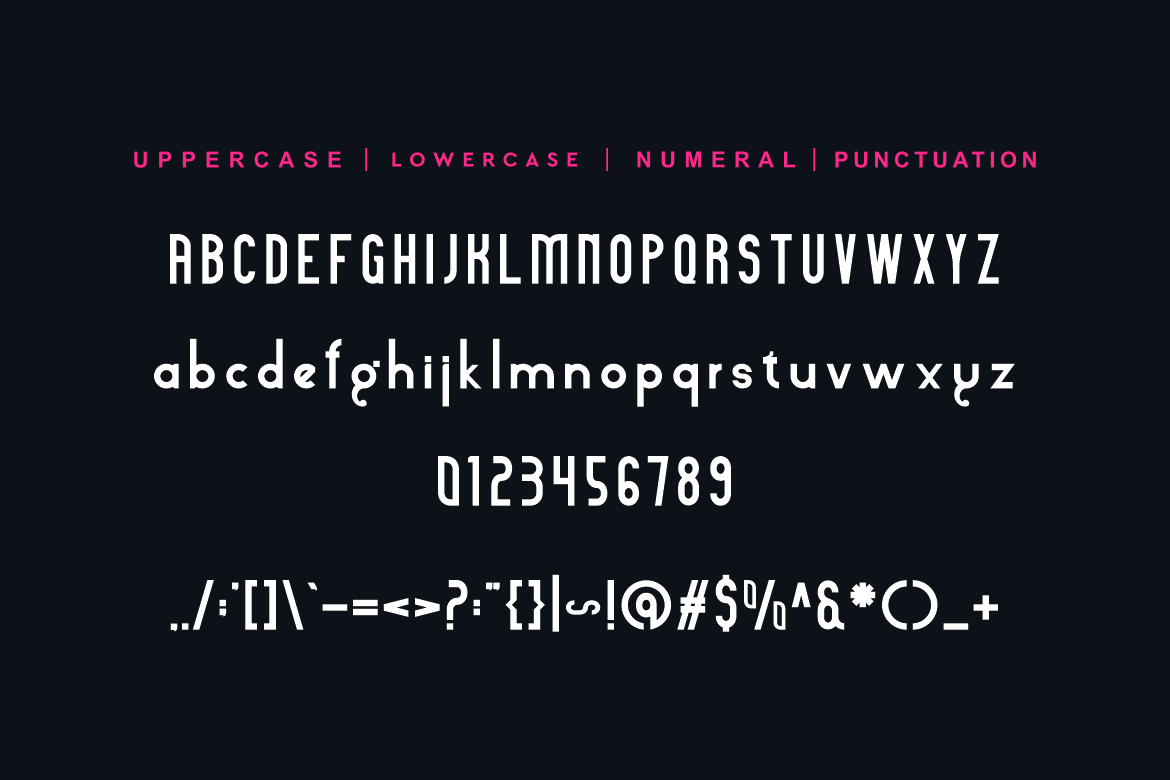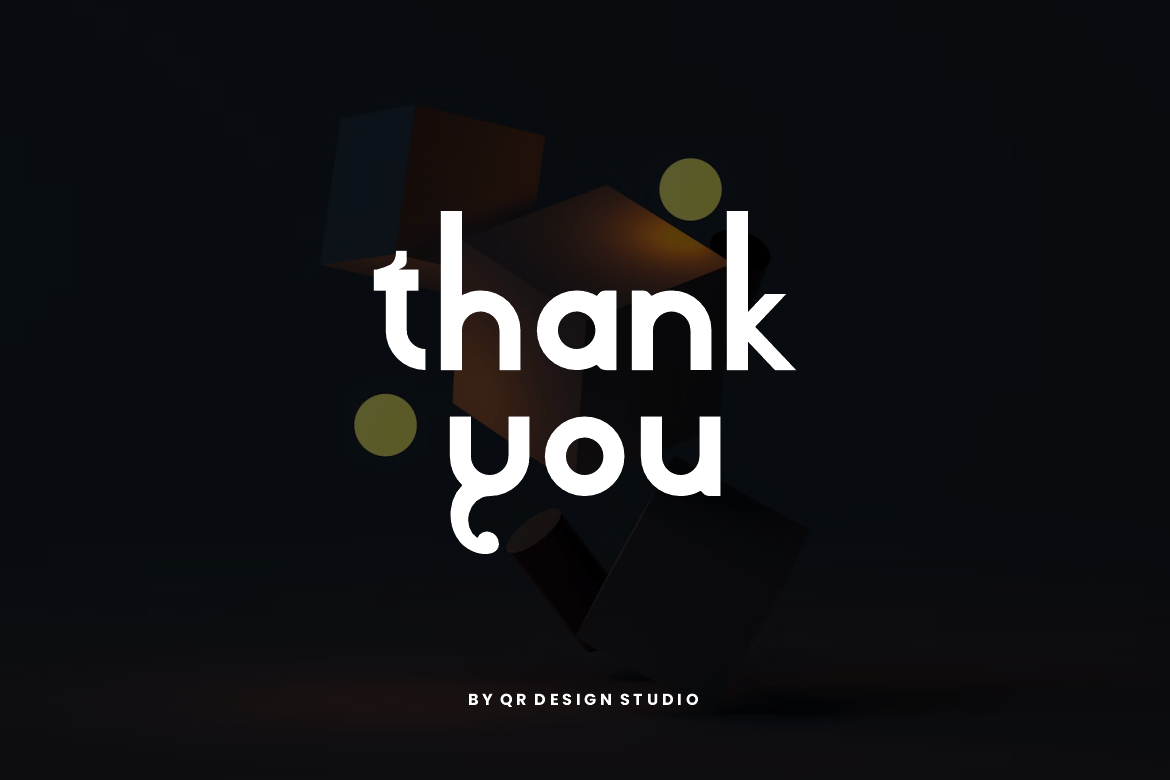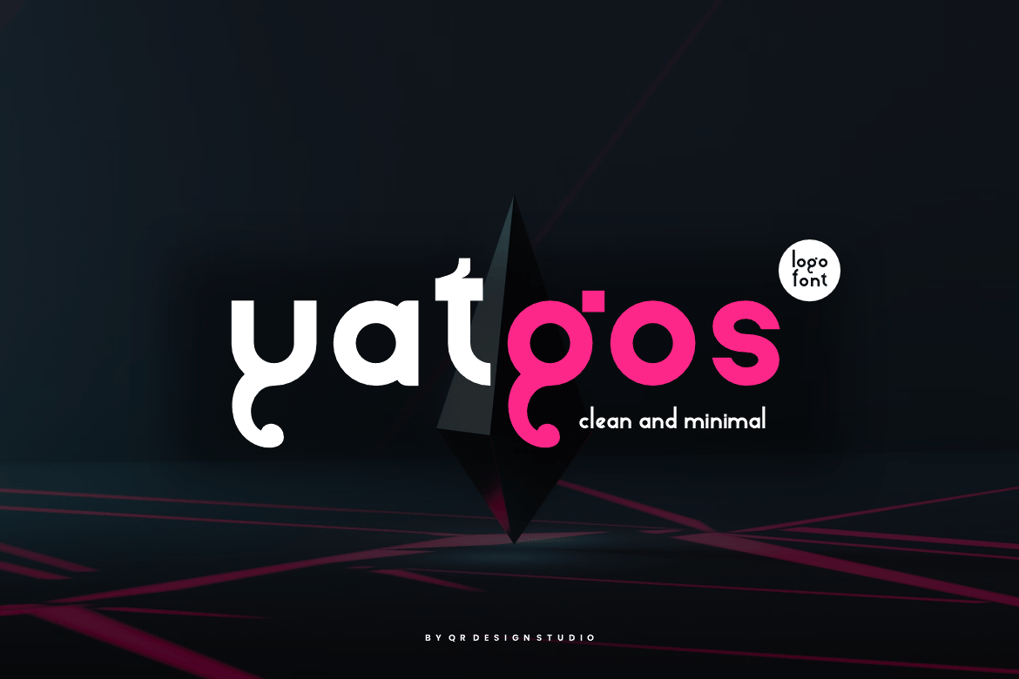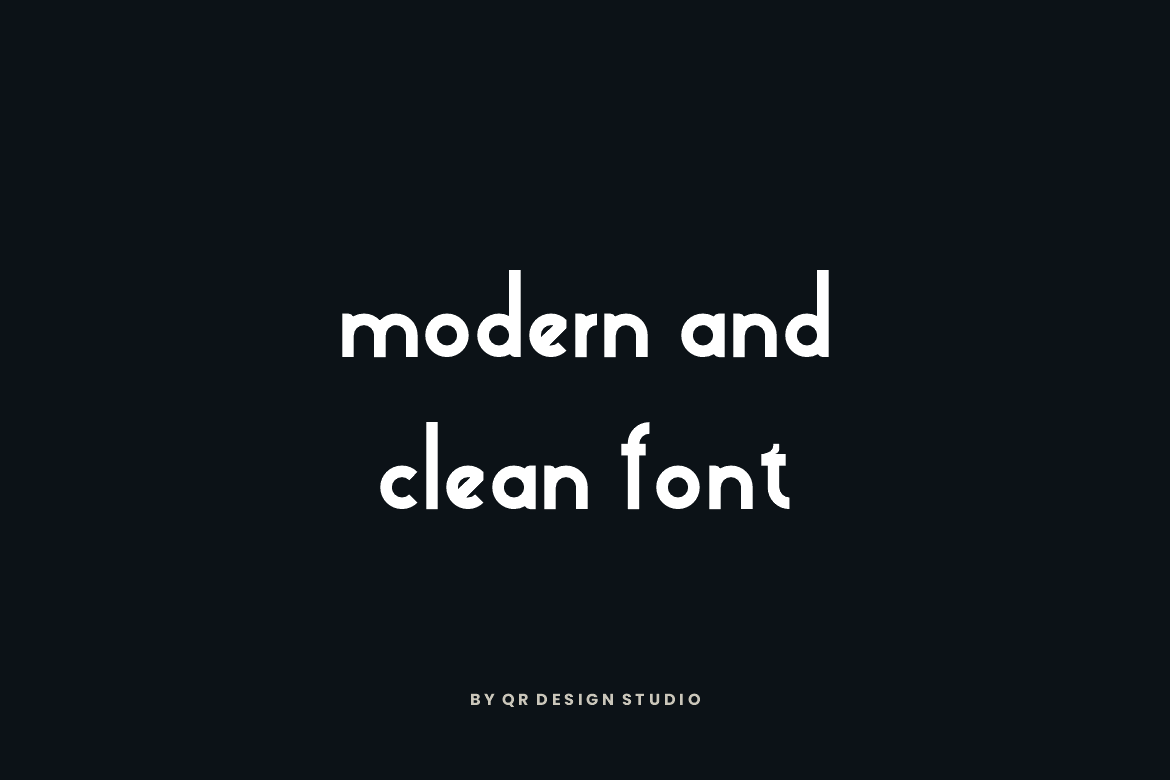
Yatgos – Clean & Minimal Font
Yatgos Font is a sans serif and authentic display font. The font is suitable for any branding project like poster, logo, sport, and many more. Outstanding in a wide range of contexts.